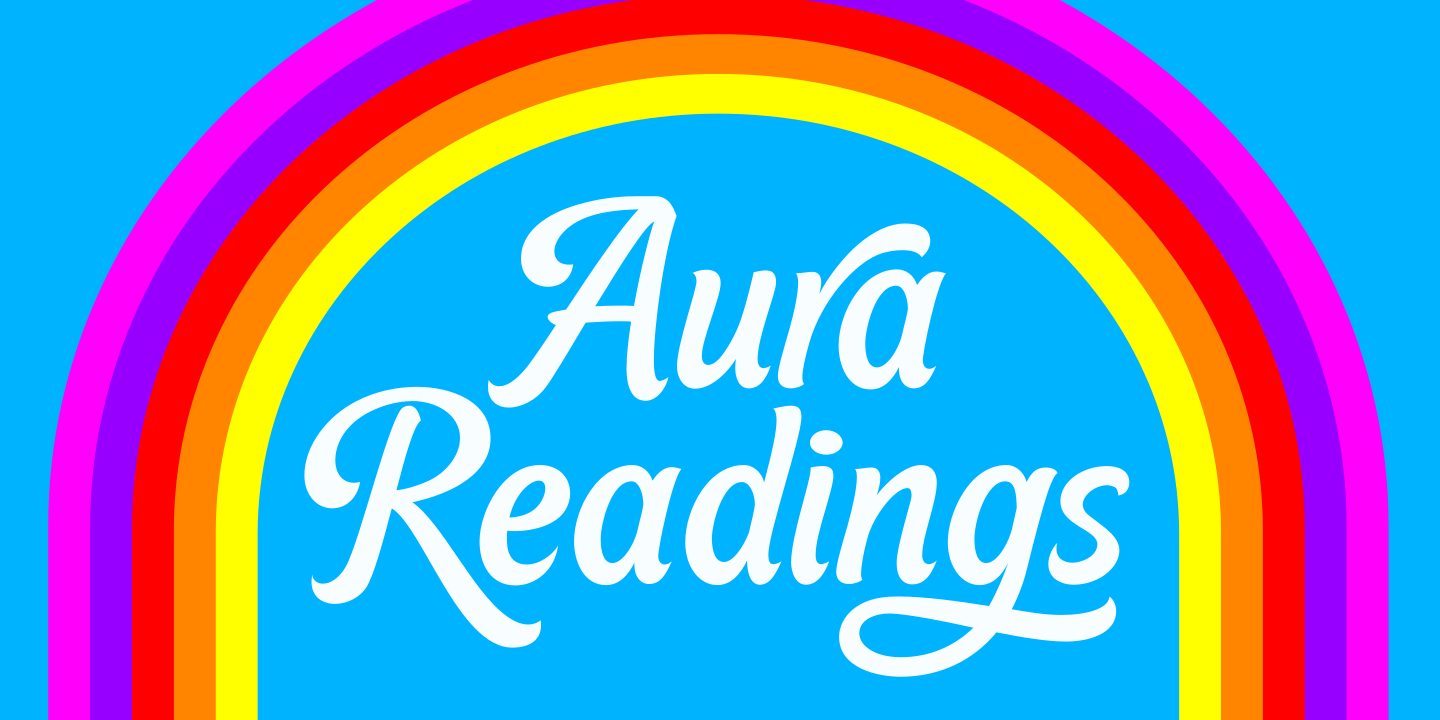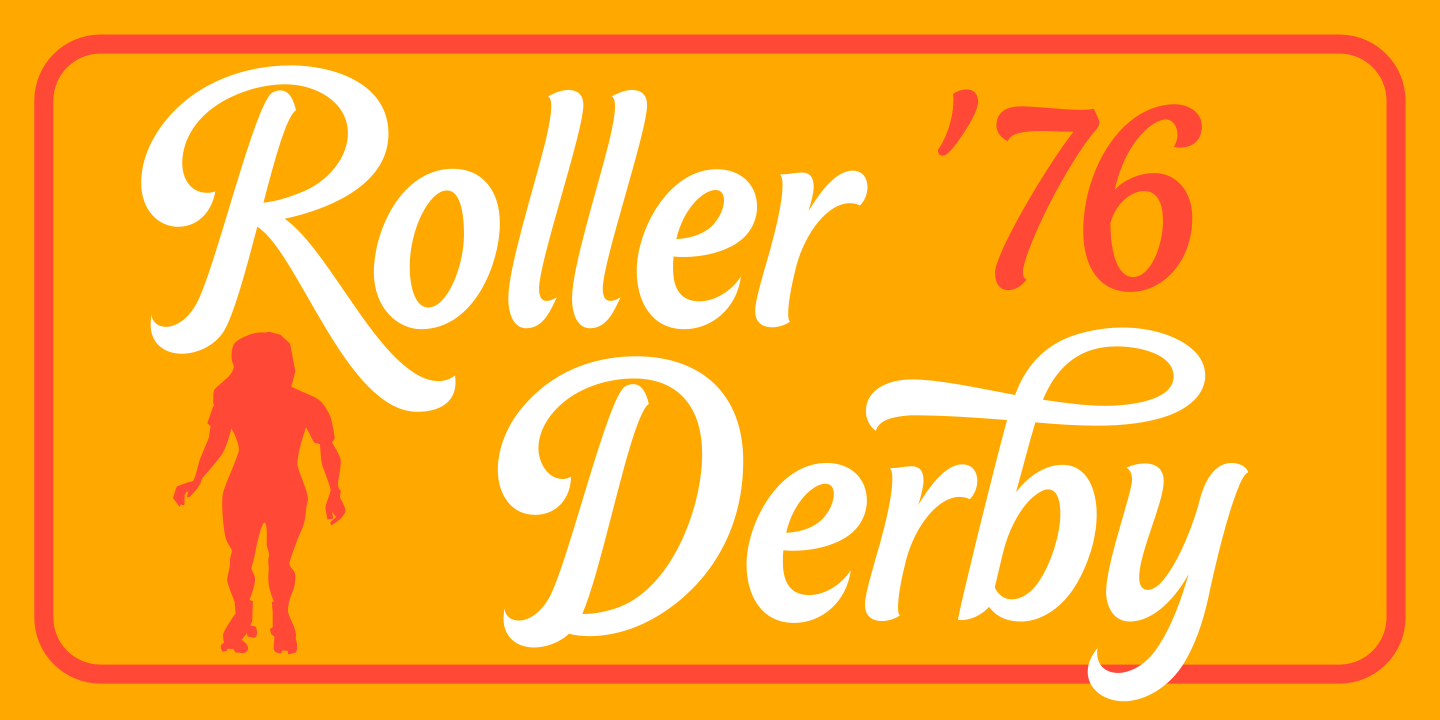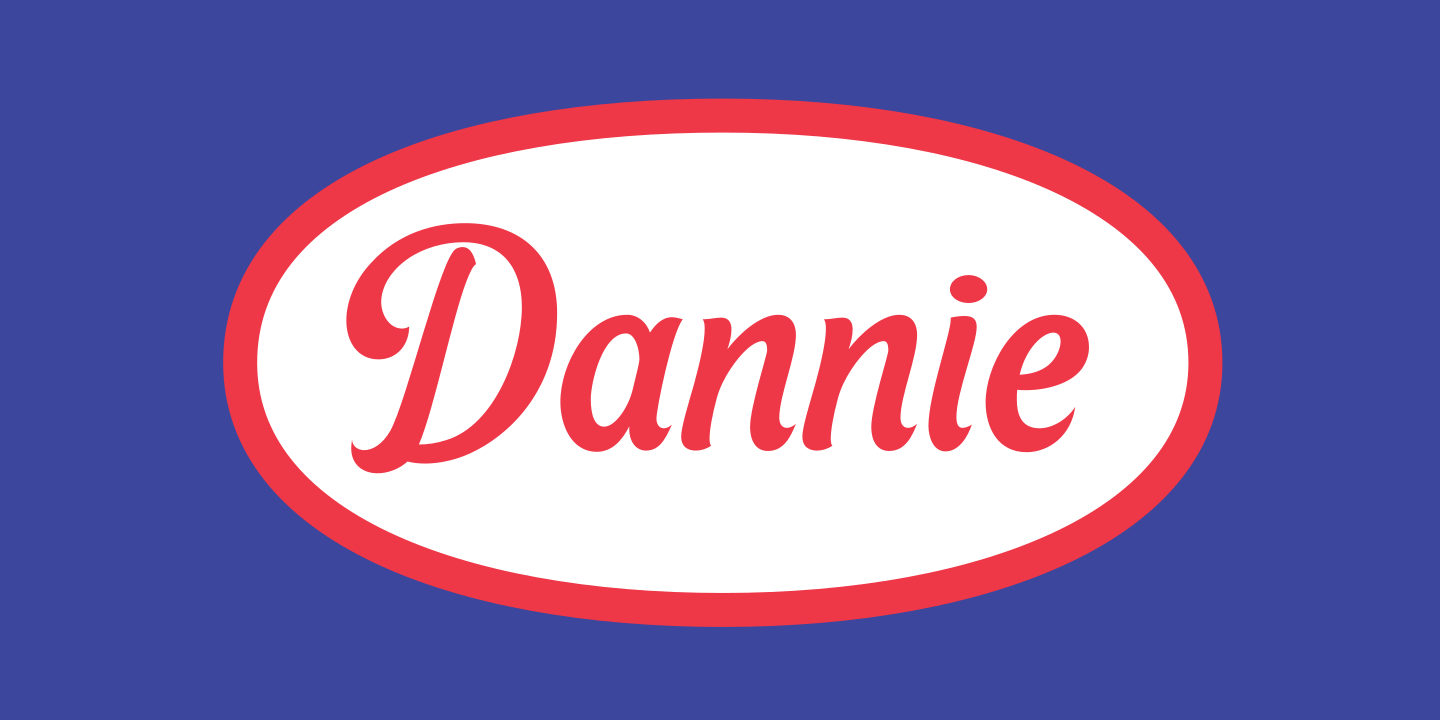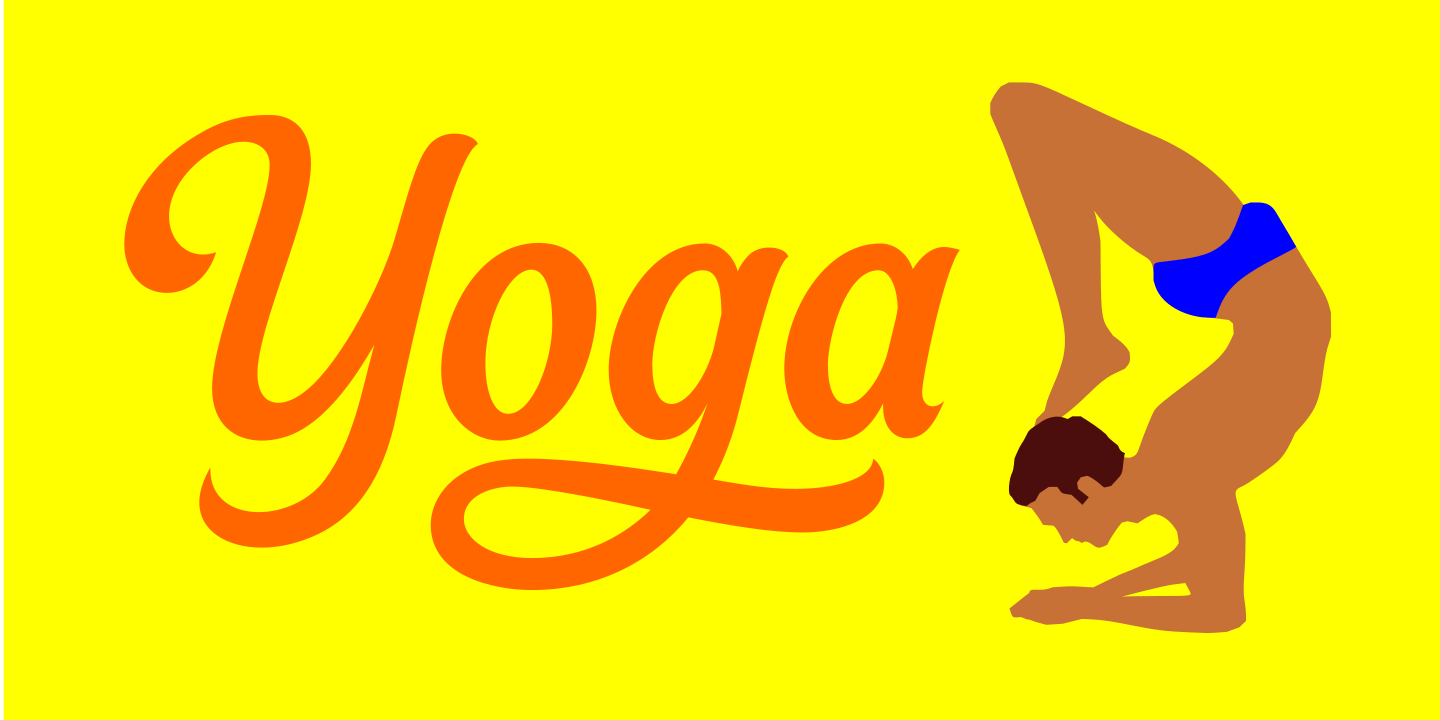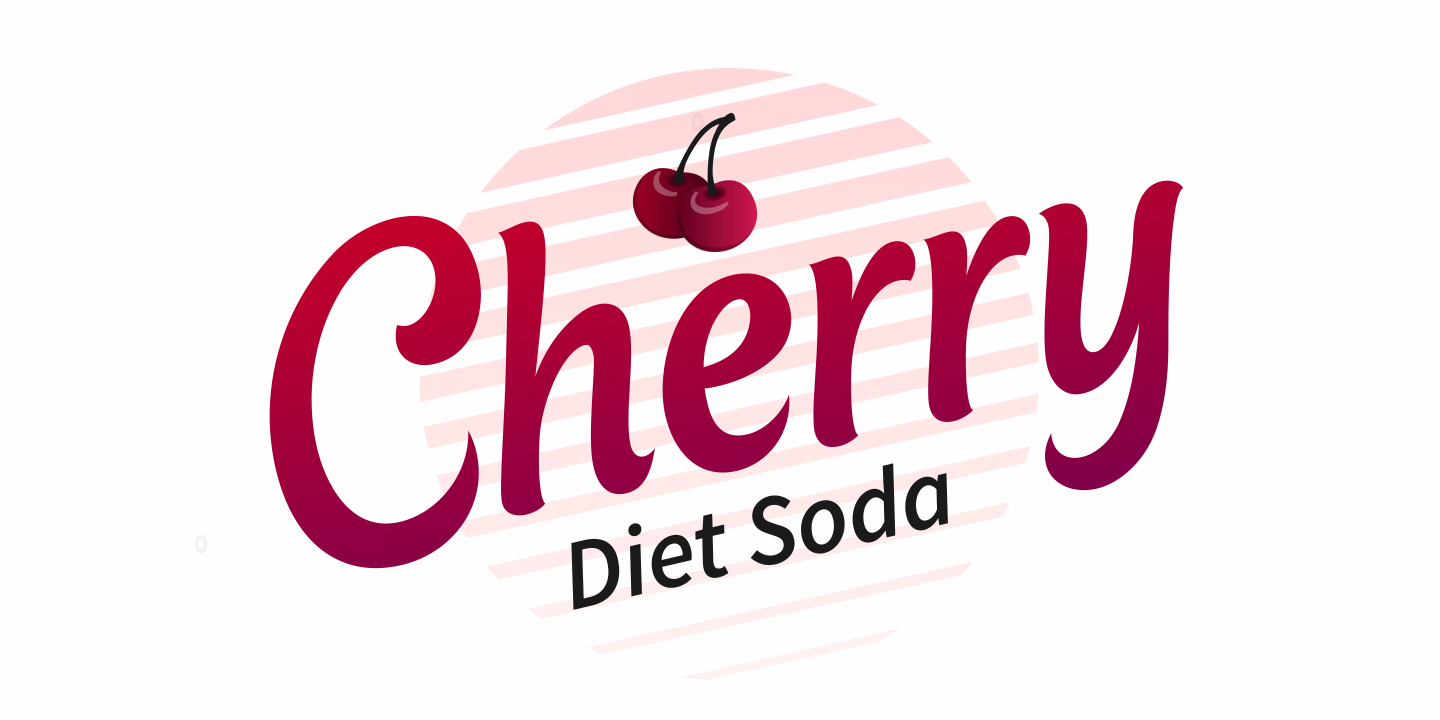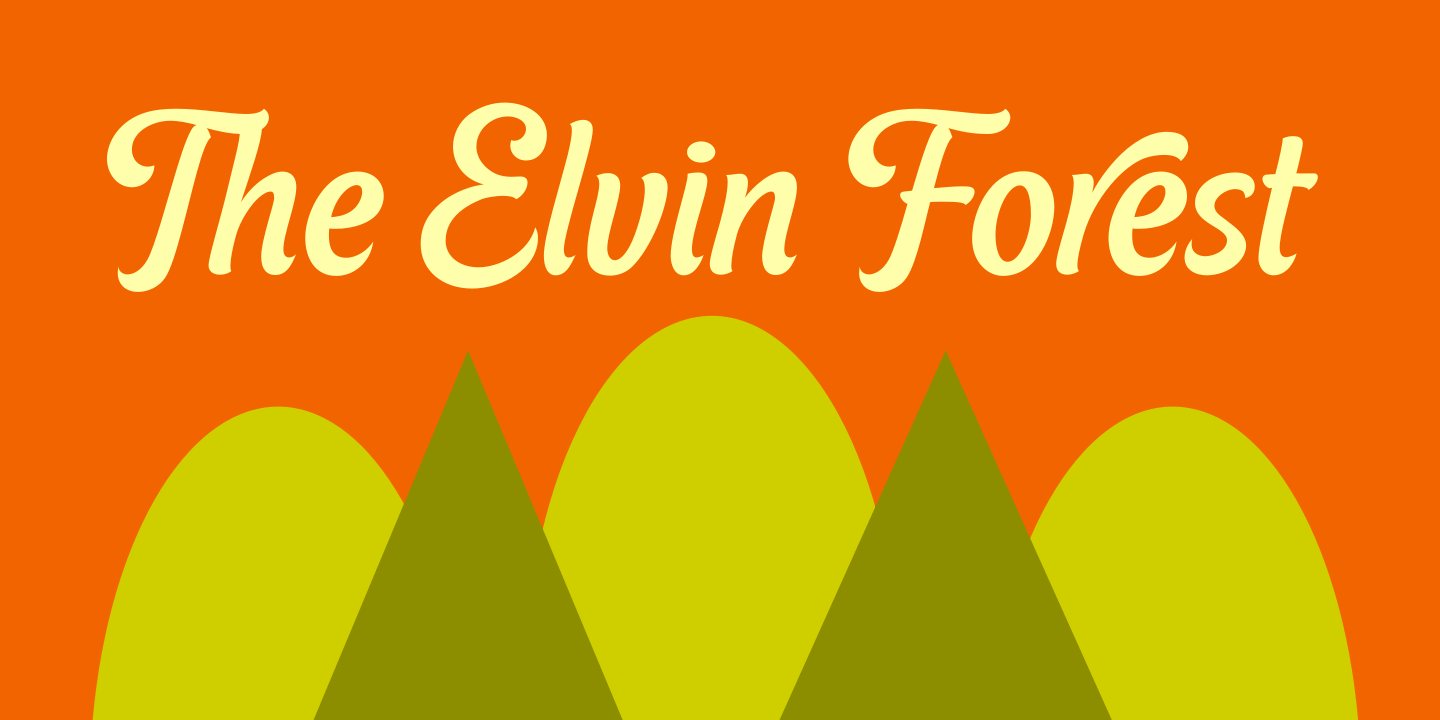
About Blowdry
Blowdry is a super swoopy swashy, disconnected, brush script font that will bring you back to the days of disco, corduroy, roller skating and blacklight posters! Is it possible to draw a bold Spencerian-ish font and not have it look like it was made in…